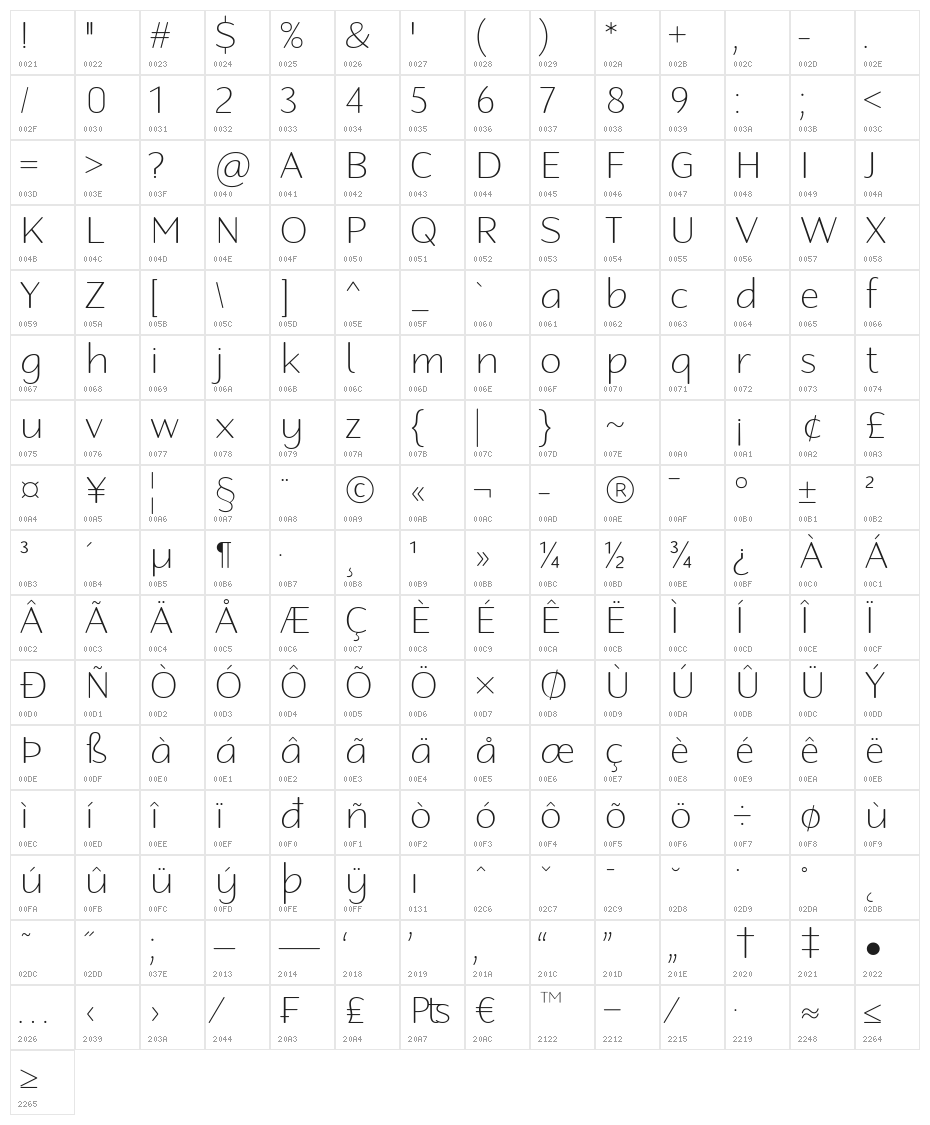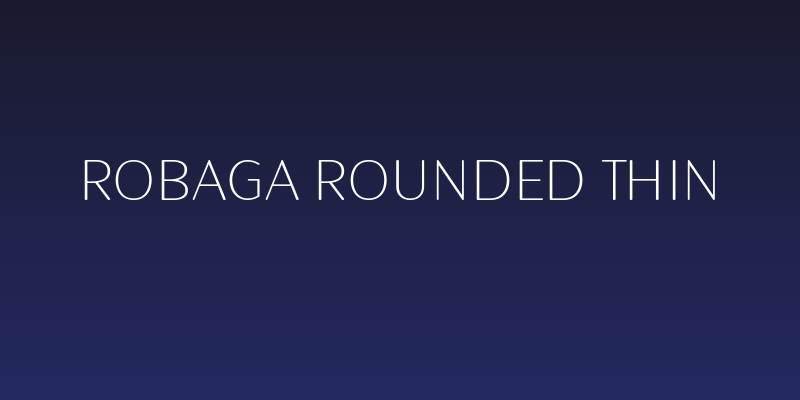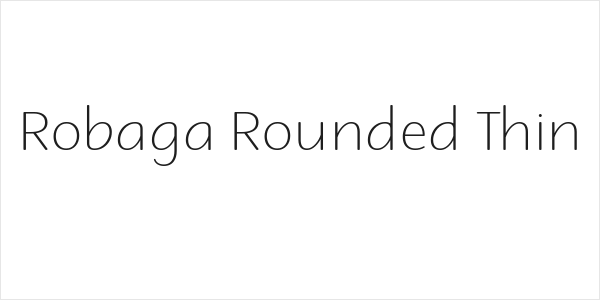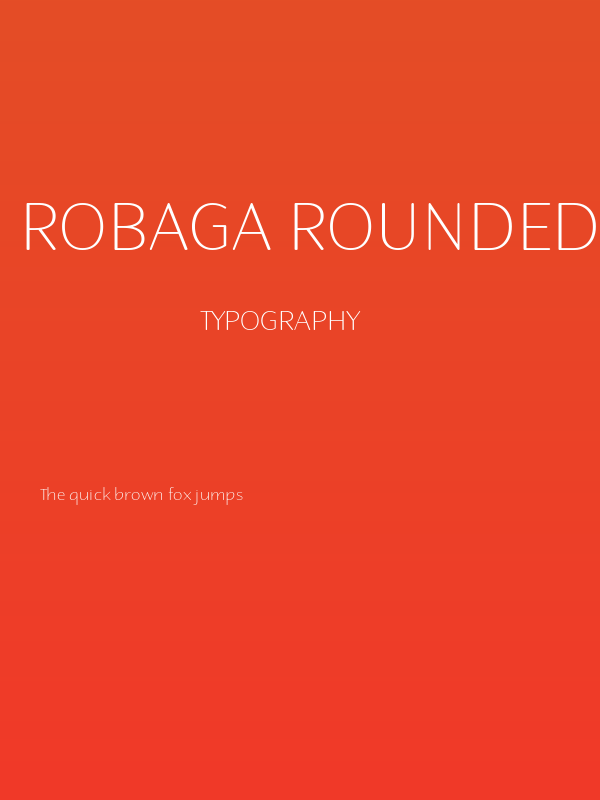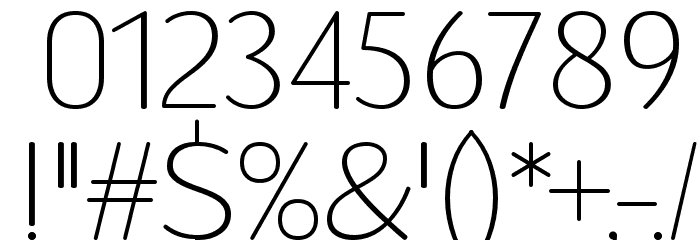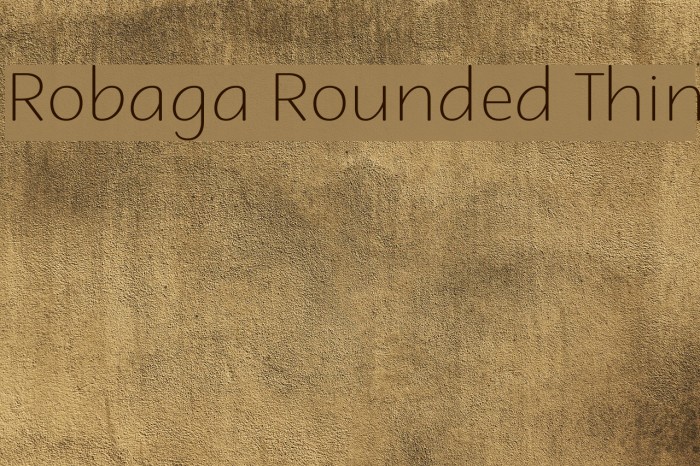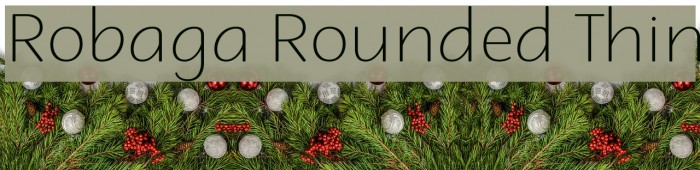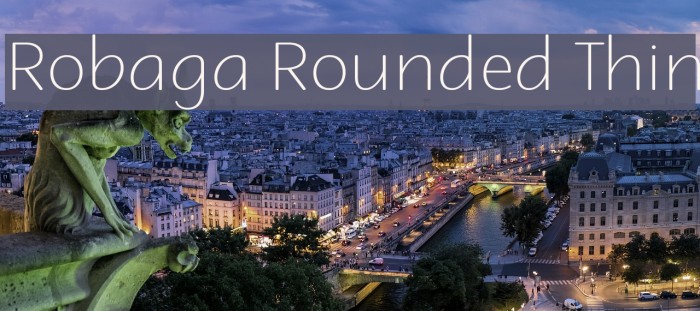
Robaga Rounded Thin Font
Robaga Rounded Thin Description
This font features a sleek, modern design with rounded edges that give it a friendly and approachable appearance. The thin strokes provide an elegant and minimalist aesthetic, making it suitable for contemporary design projects. The characters are well-proportioned, with a consistent line weight that enhances readability. The rounded terminals soften the overall look, adding a touch of warmth to the otherwise clean and geometric structure. This font is versatile, working well in both digital and print media, and can be used to convey a sense of modernity and sophistication.
| Proposed Projects | Ideal for branding, web design, app interfaces, and editorial layouts. |